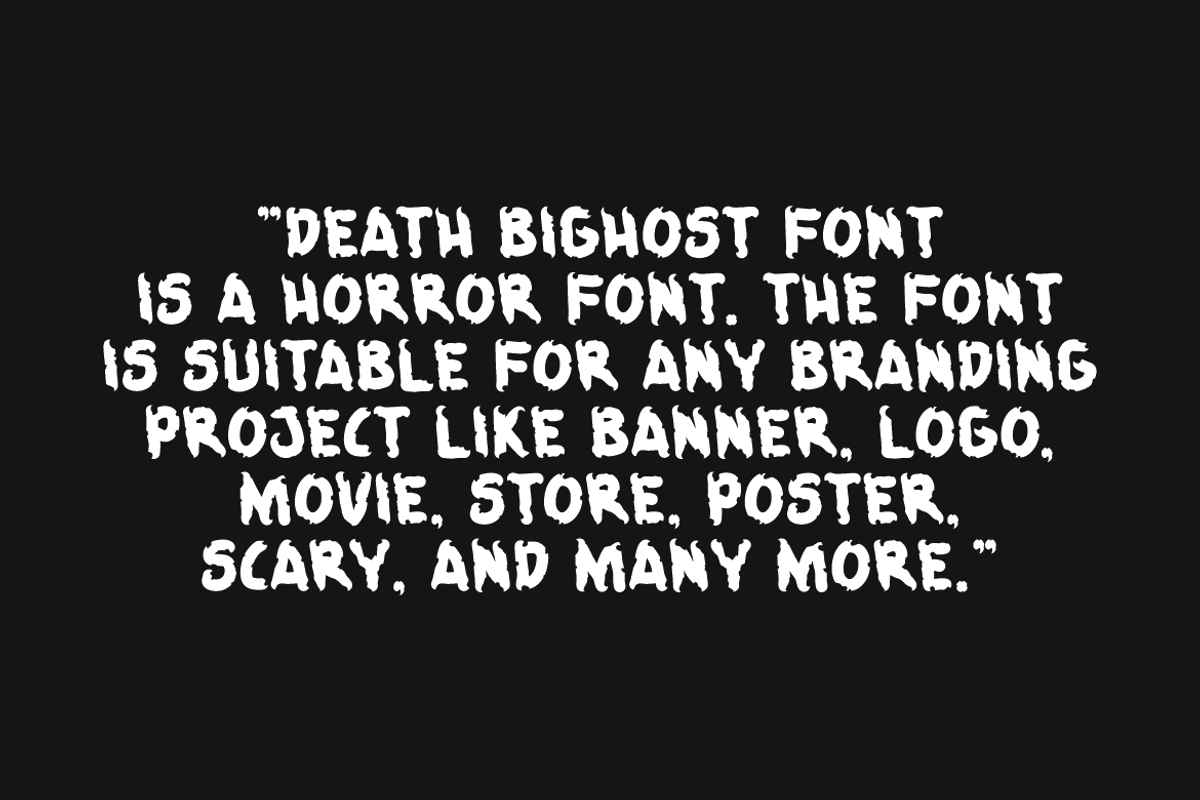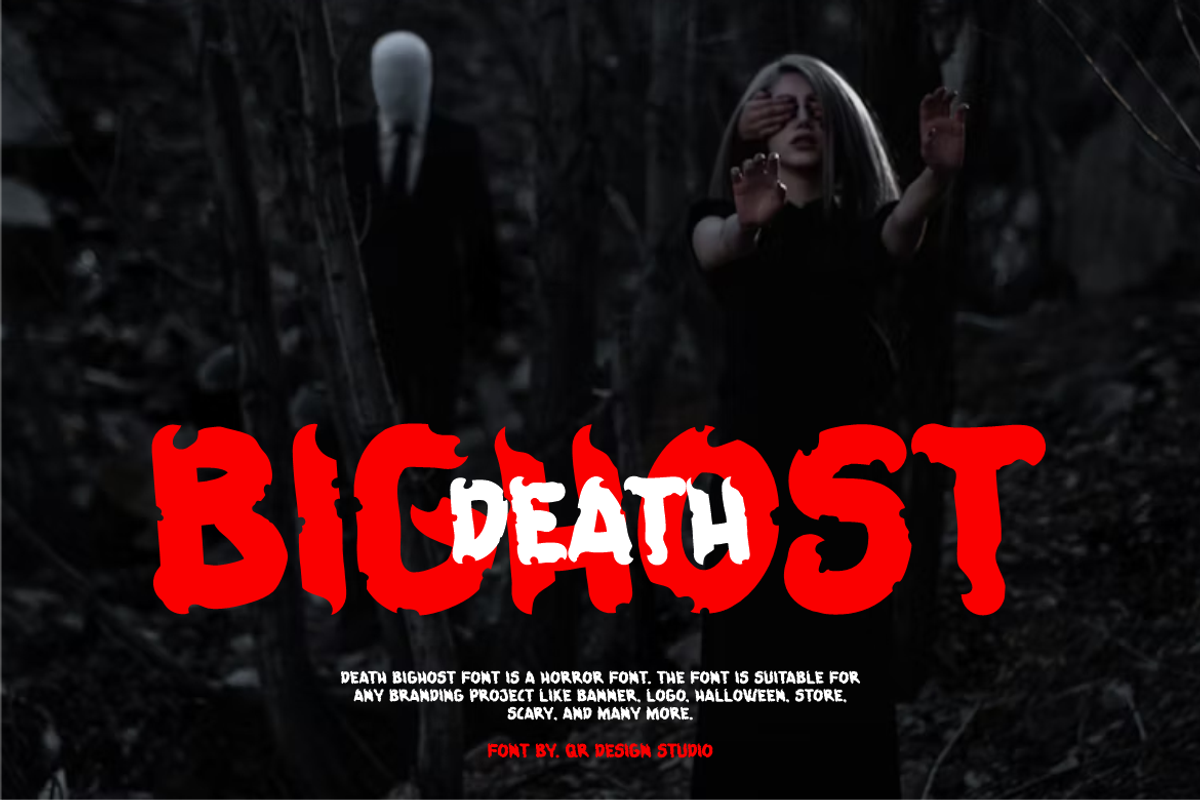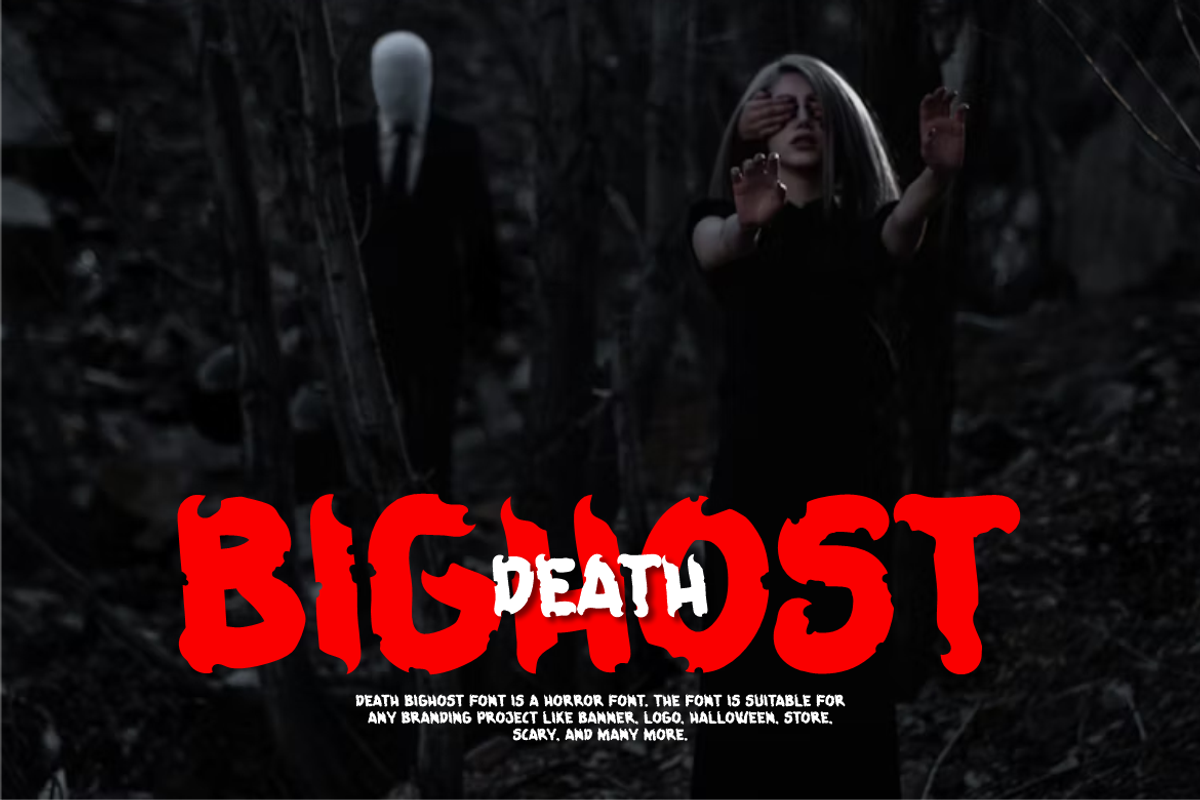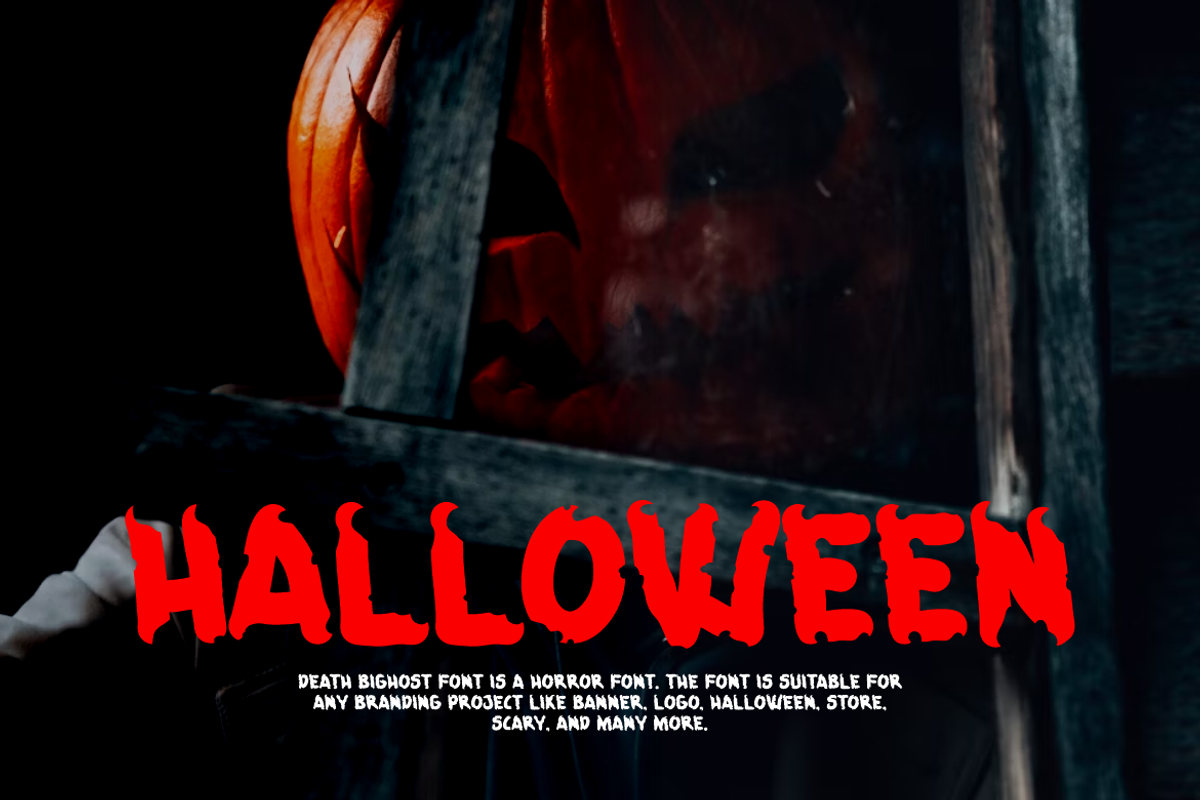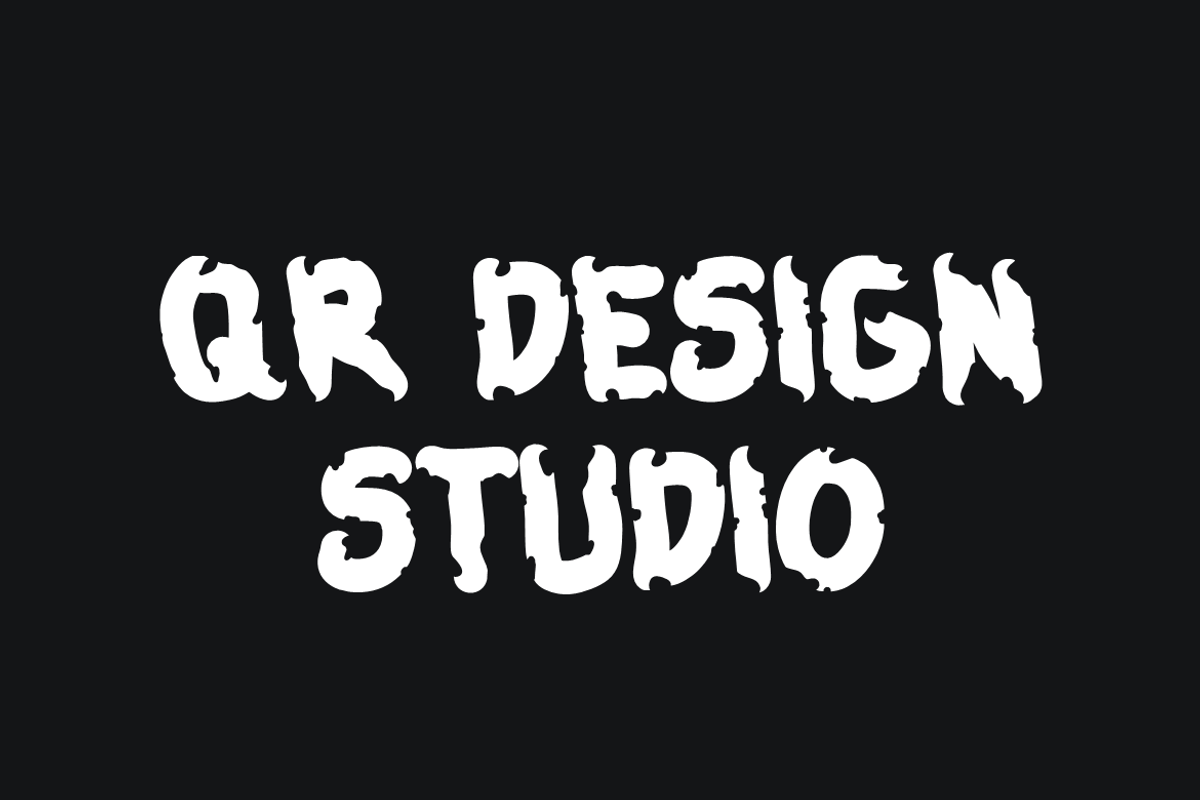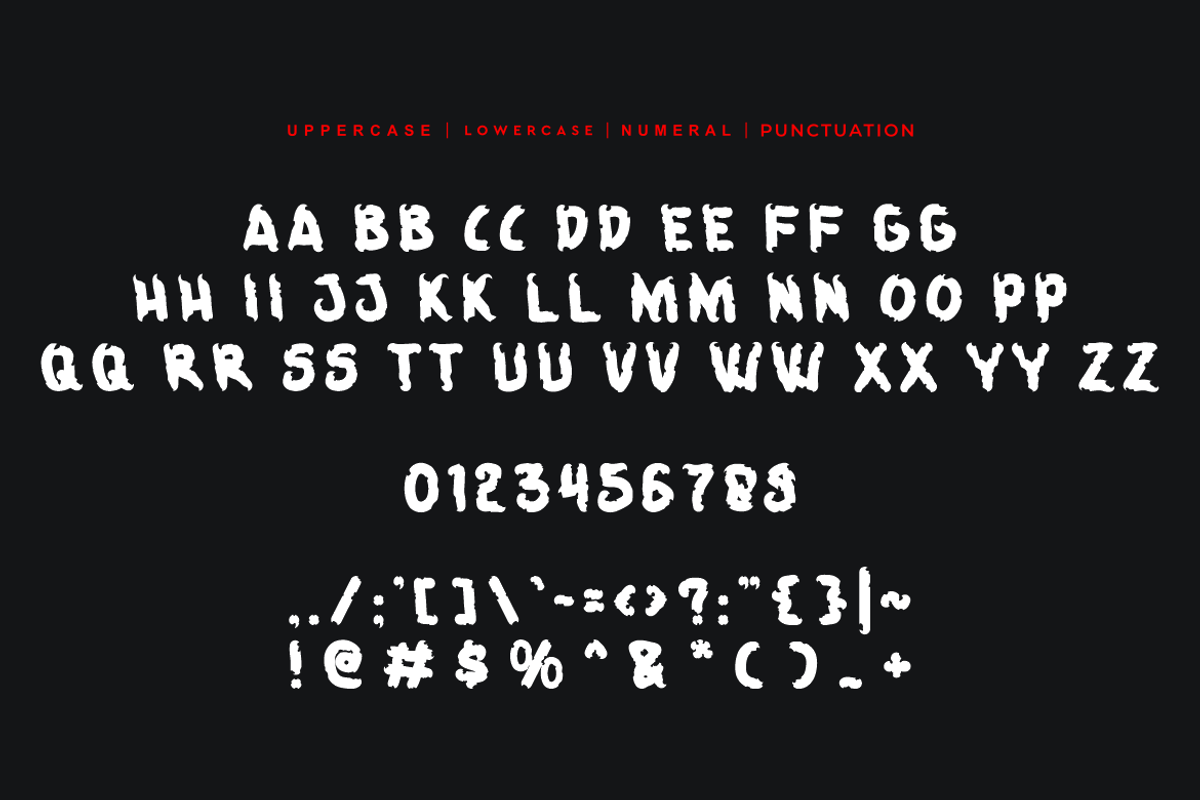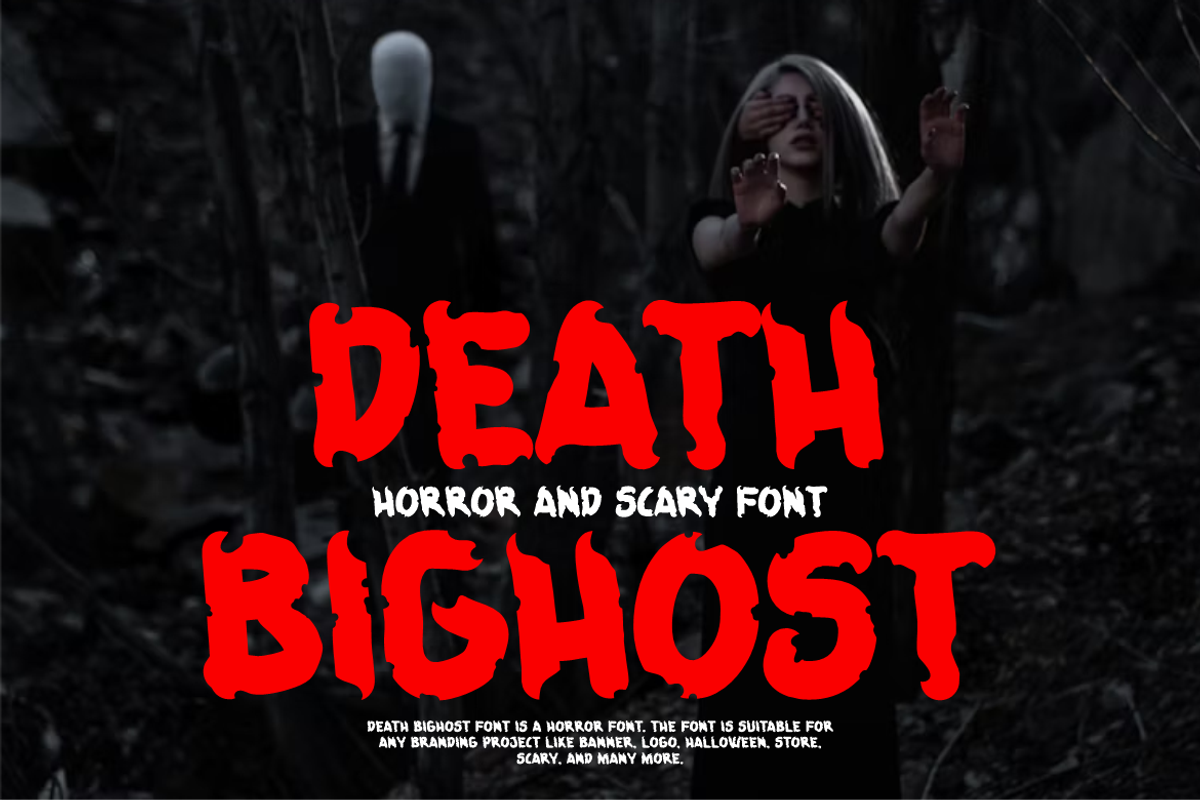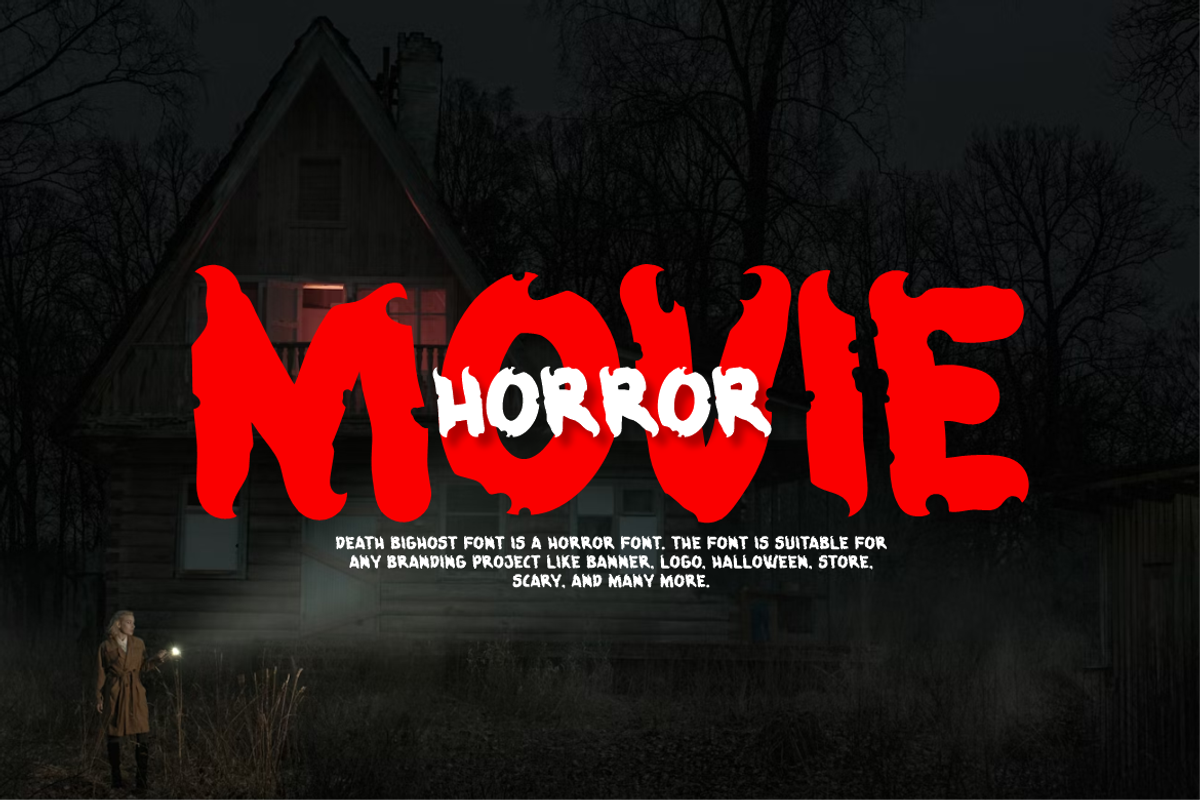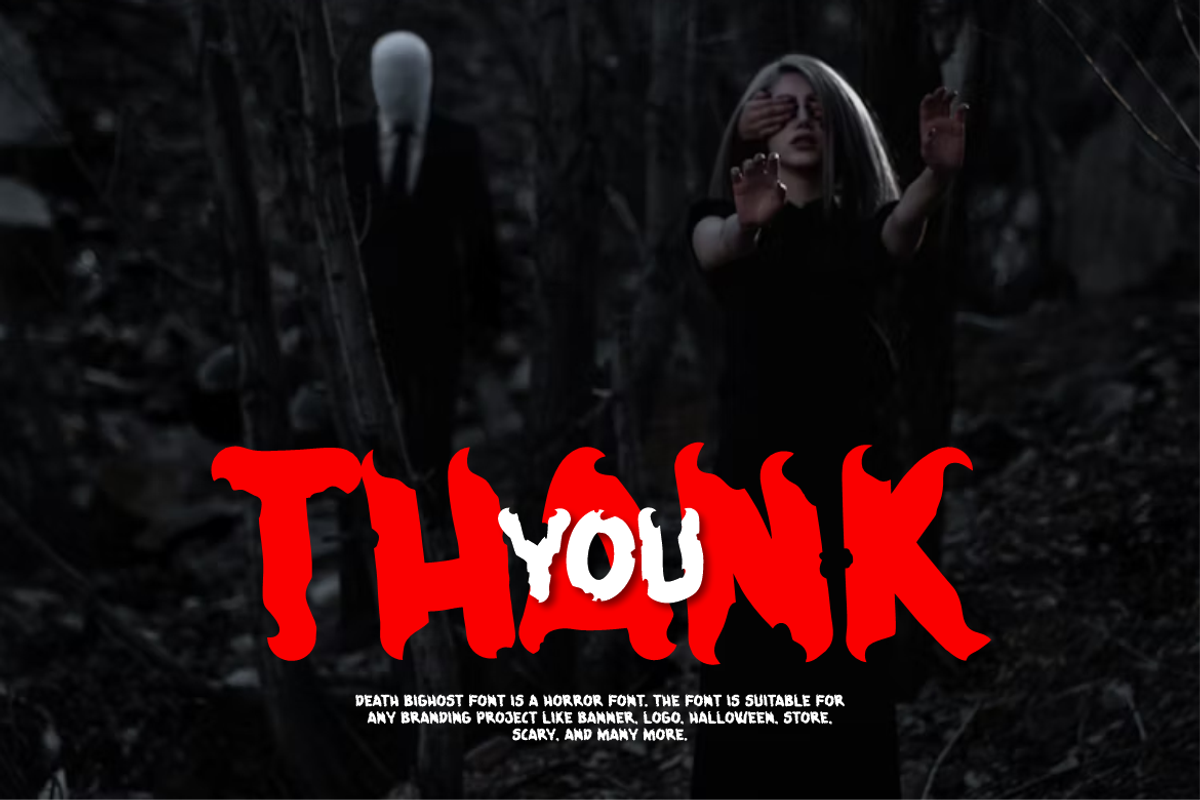
Death Bighost - Horror Font
Death Bighost Font is a best and authentic display font. The font is suitable for any branding project like poster, logo, horror, and many more. Outstanding in a wide range of contexts.